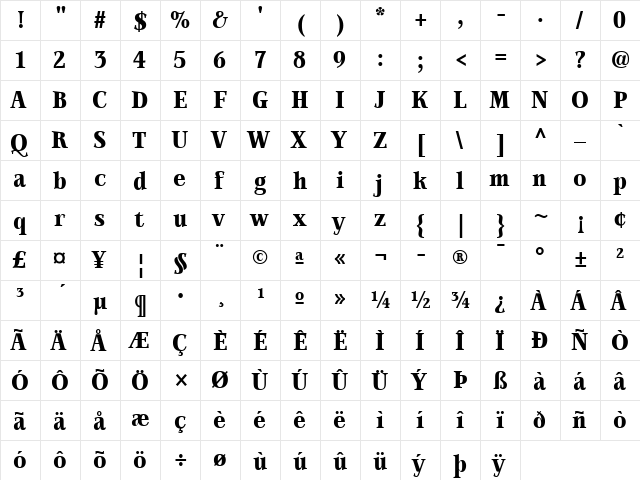
AISwan Extrabold Condensed
Design Context for AISwan Typeface
AISwan is a composed and adaptable typeface that performs quietly and consistently across a wide range of design contexts. The heavy weight commands attention and anchors typographic hierarchies. The condensed width makes it efficient for tight spaces without sacrificing legibility.